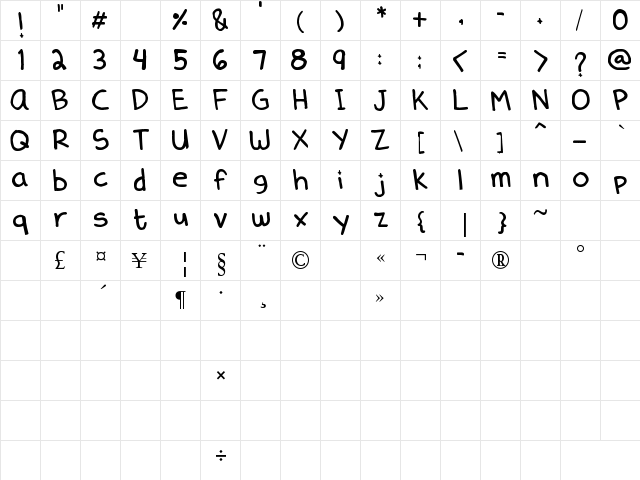
Denne Delica Regular Font Preview
Denne Delica Regular
Design Context for Denne Delica Typeface
Denne Delica is a composed and adaptable typeface that performs quietly and consistently across a wide range of design contexts.